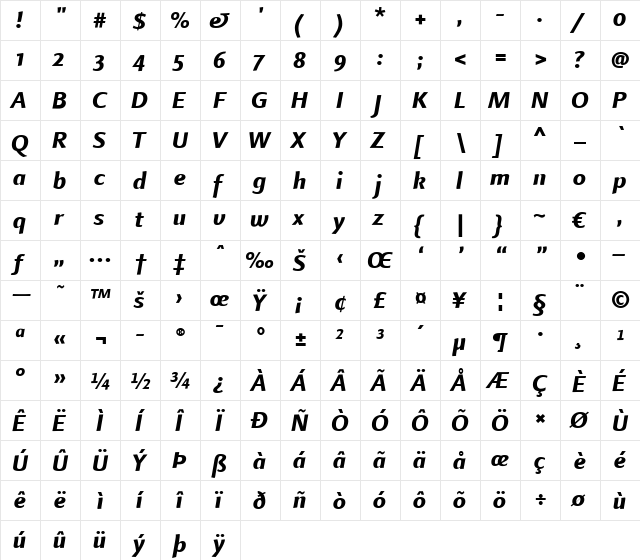
LTFinnegan OsF Medium Bold Italic
| Designer | Juergen Weltin |
Design Context for LTFinnegan OsF Medium Typeface
LTFinnegan OsF Medium offers clean, dependable letterforms without strong stylistic allegiance, making it a practical choice for designers who need flexibility. Its italic angle brings a sense of urgency and motion to the letterforms. Its bold stroke weight gives it real presence on the page.
Pro Tip: Use LTFinnegan OsF Medium for emphasis, pull quotes, and subheadings where its slanted energy can add rhythm to the layout.